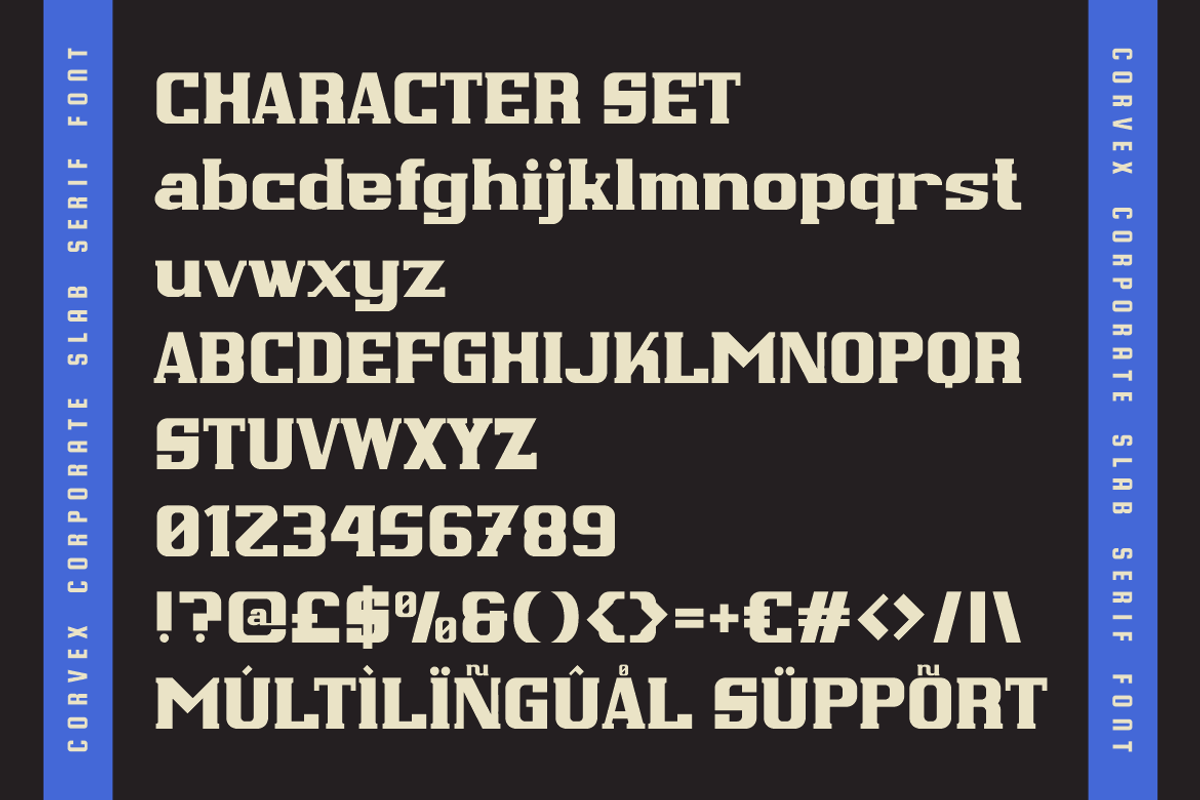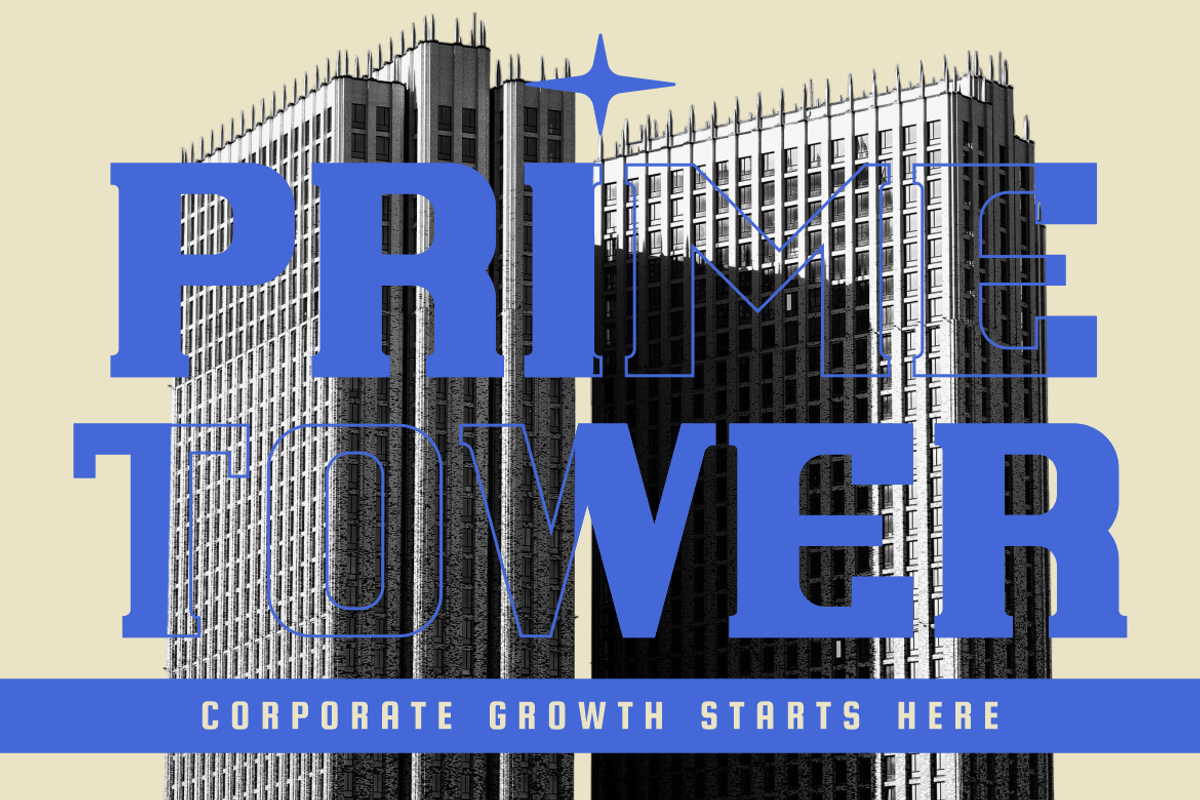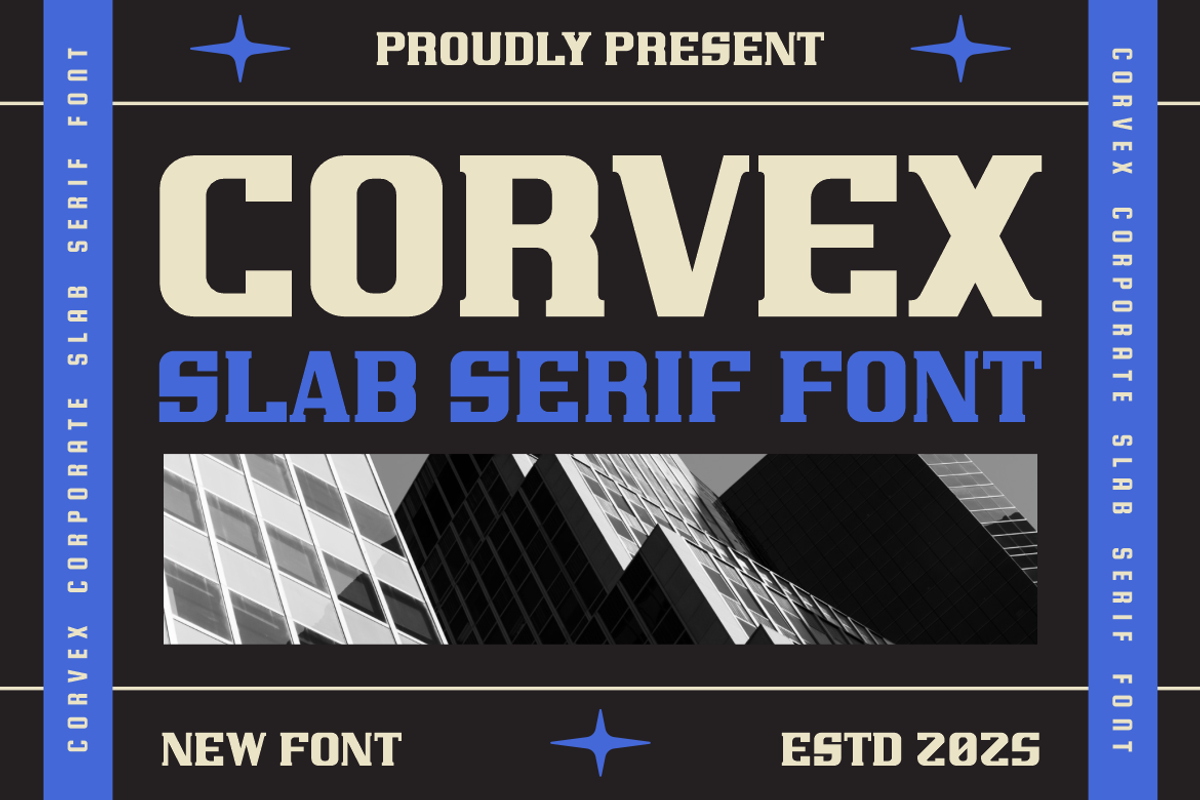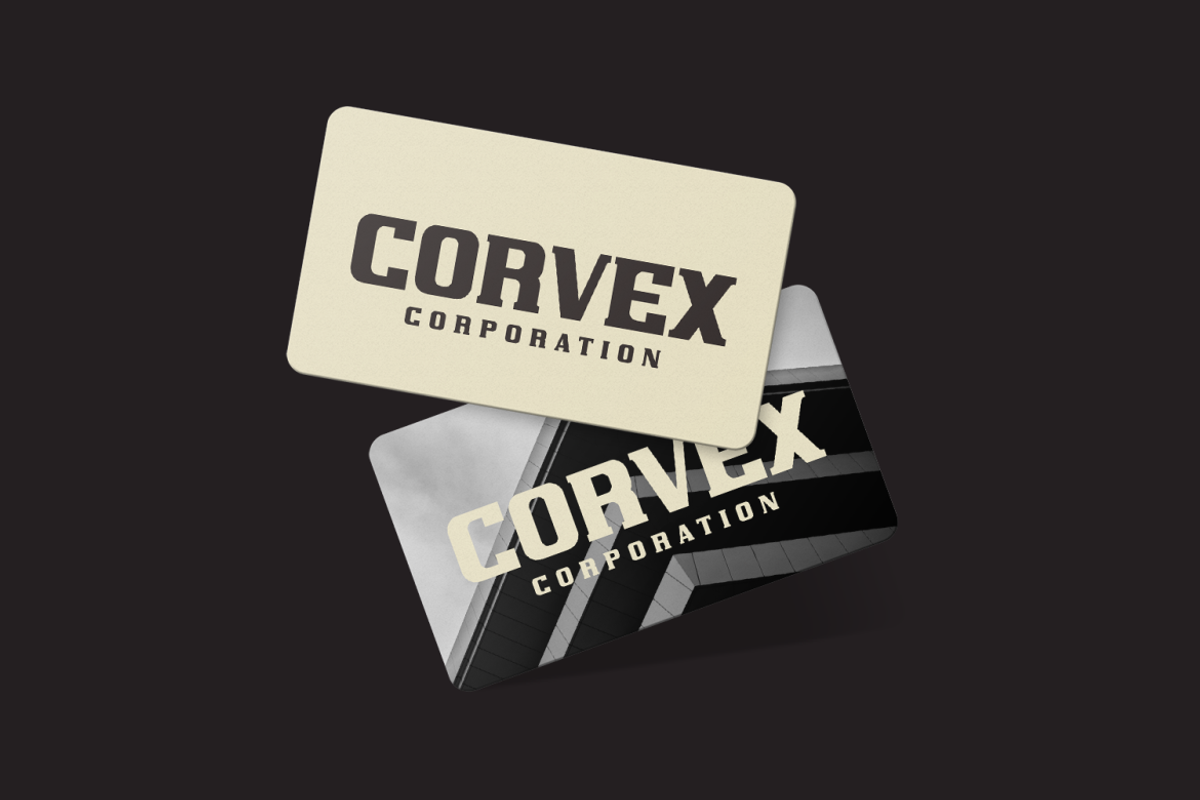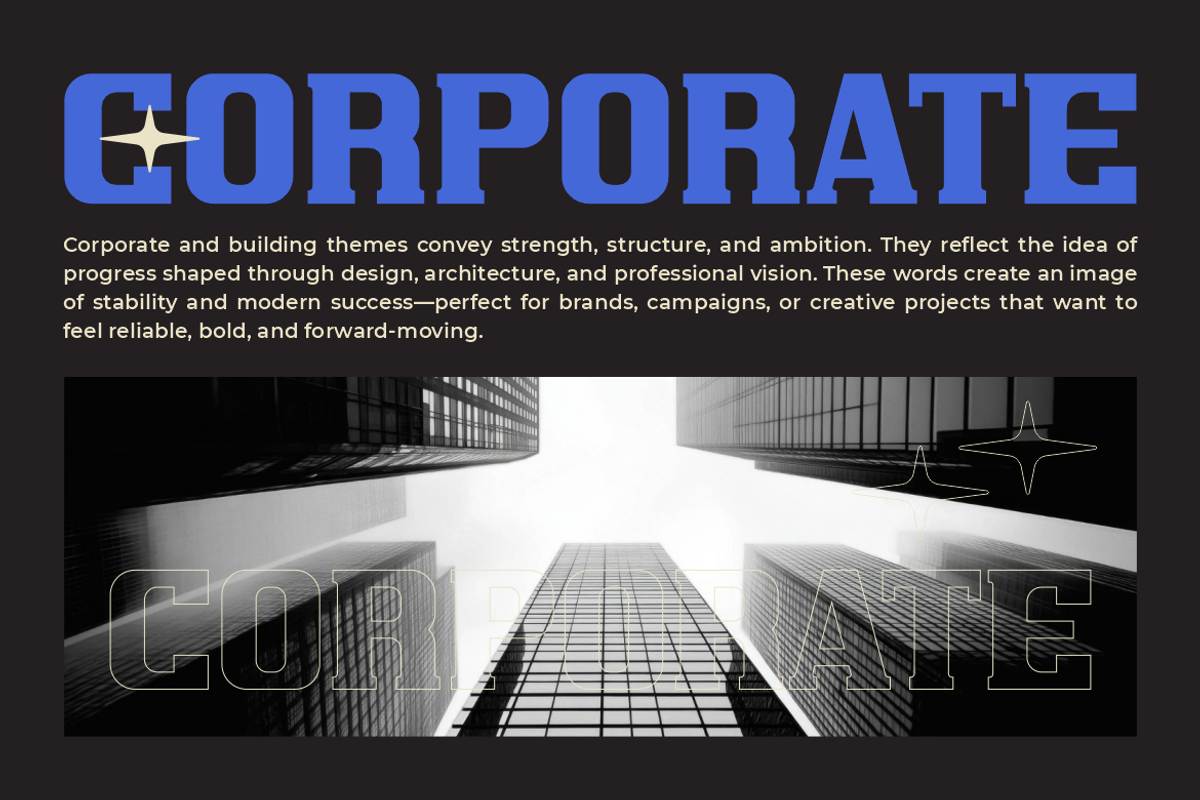
Corvex Modern Corporate Slab Serif
Corvex Modern Corporate Slab Serif Font brings a commanding look shaped through heavy slabs, tall proportions, and firm geometric structure. Its letterforms feel solid and stable, with squared edges and wide stems that boost clarity in every scale. Each character has a balanced weight that communicates reliability and corporate strength without losing modern appeal. The slab detailing supports a bold visual rhythm, while the tight spacing keeps every word compact and powerful. Corvex Modern Corporate Slab Serif Font offers a style that feels forward-moving, decisive, and ready for professional applications. Its clean design makes it ideal for projects that demand structure, order, and visual authority.
This font suits logos, branding, posters, packaging, business titles, editorials, book covers, and film headlines. The strong serif elements add depth, making every composition stand out with confidence. Designers can build bold identity systems, impactful advertisements, and modern corporate layouts with ease. Its durability in both print and digital use enhances long-term brand consistency. Whether you craft professional campaigns, structured layouts, or promotional materials, Corvex Modern Corporate Slab Serif Font delivers a dependable foundation for any corporate-driven design.